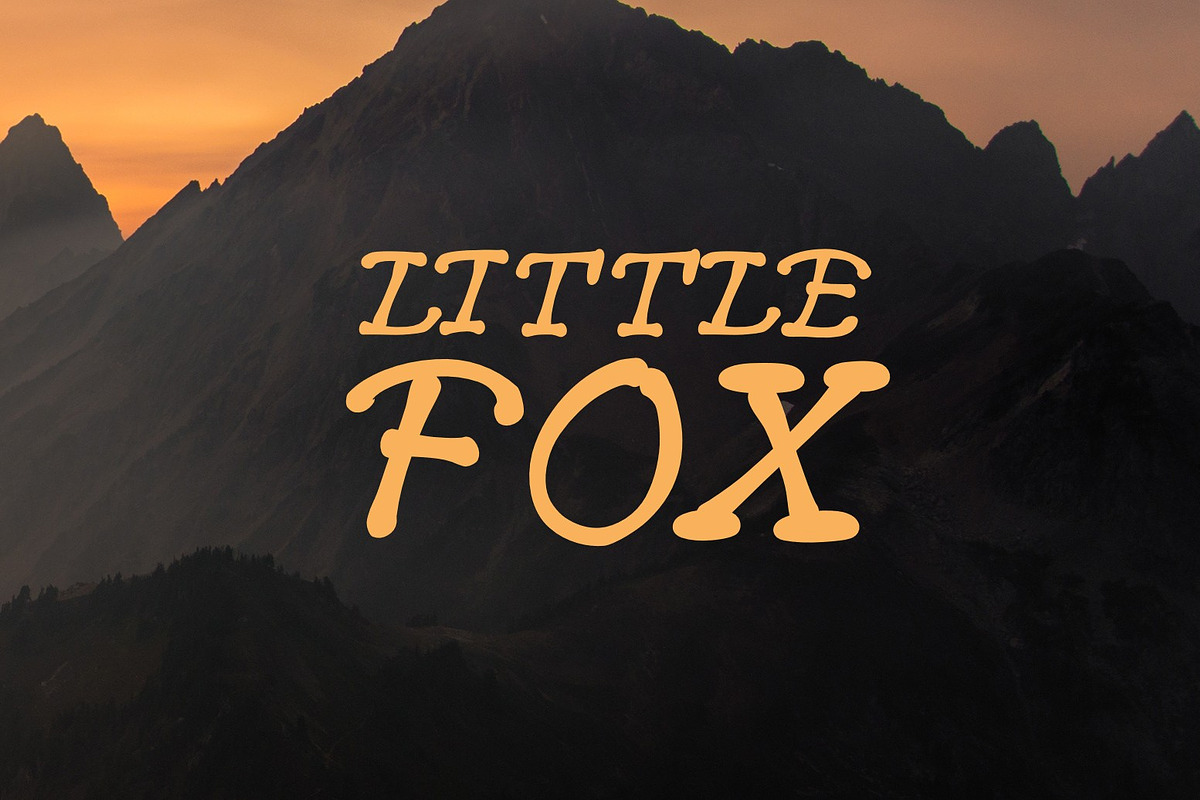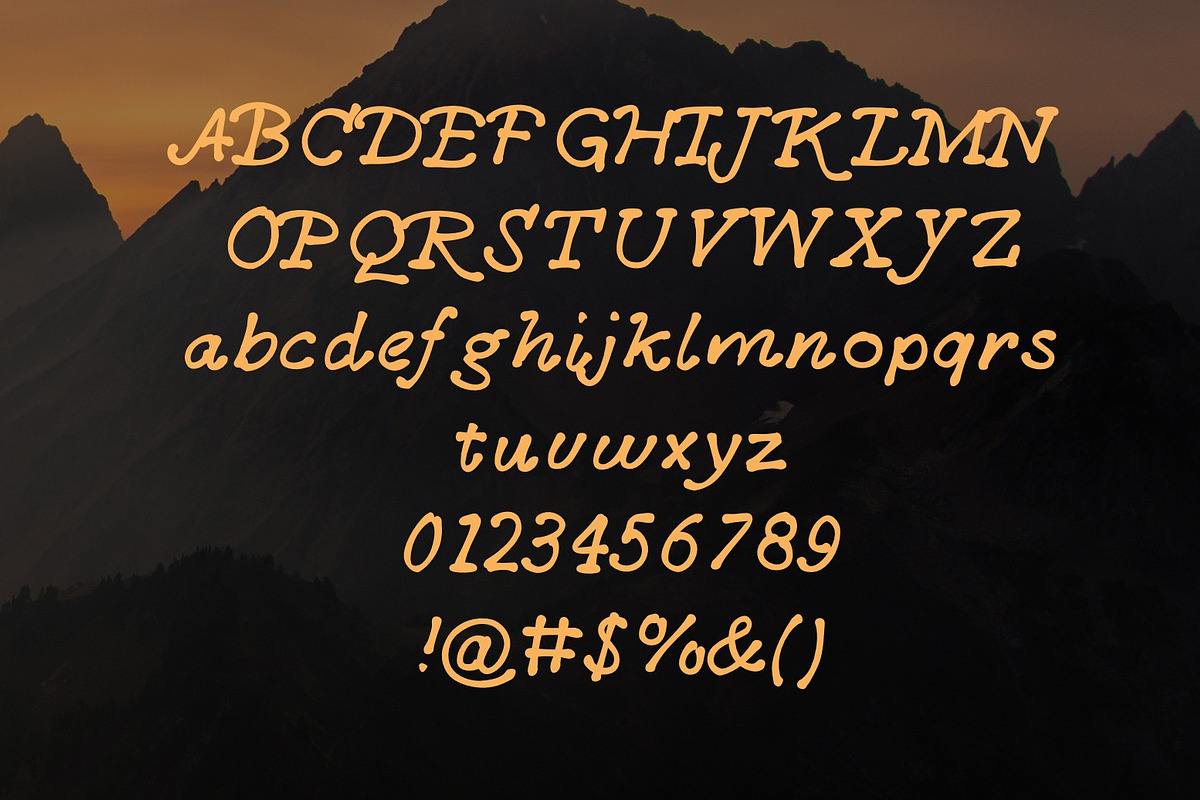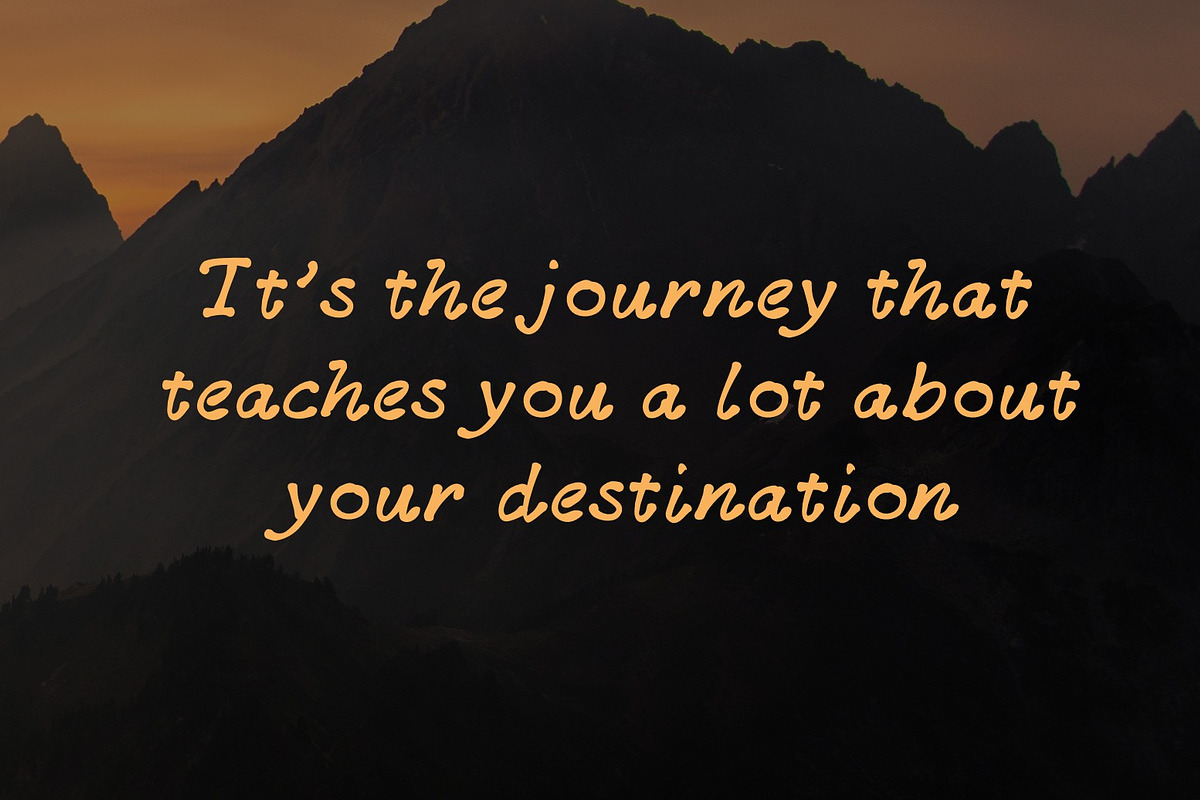
Little Fox Font
Little Fox Font by WeGraphics is a font selected for branding, posters, packaging, typography.
- It includes all uppercase and lowercase characters, numbers and most common symbols.
- Little Fox works great as a headline or to accent a lettering piece.
Why Little Fox Font is worth a look
Little Fox Font by WeGraphics fits naturally into Branding, posters, packaging, typography.